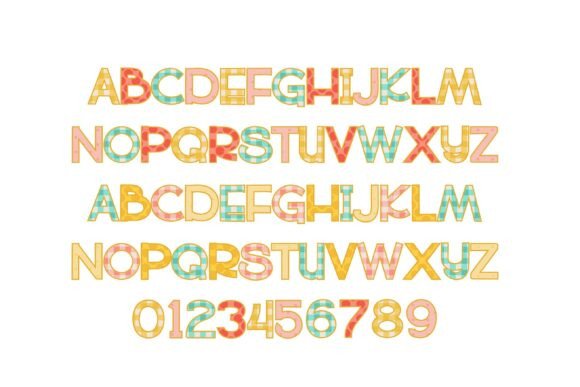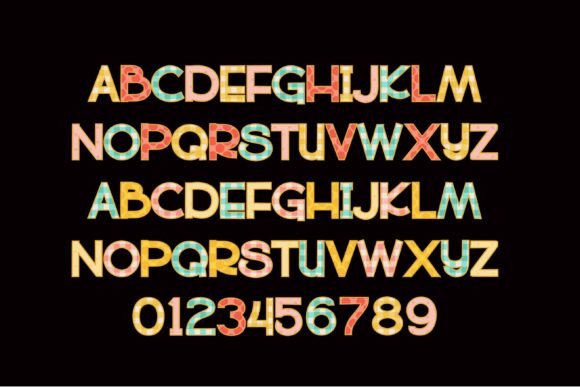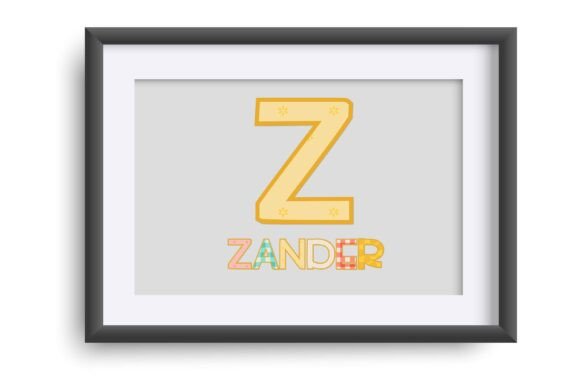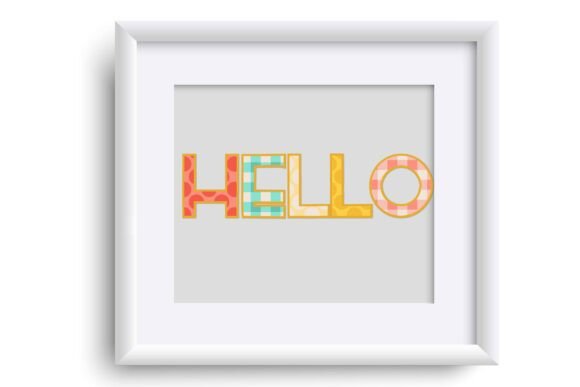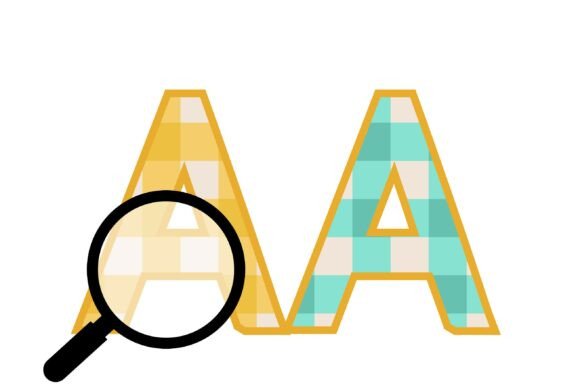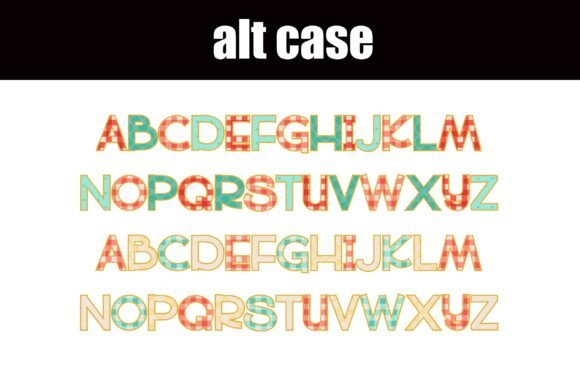
Introducing Good Morning Font: A Whimsical and Colorful Addition to Your Design Arsenal
Are you tired of using the same old fonts in your designs? Look no further! Good Morning Font is a full-color font that features a whimsical, crafty style in a pastel color palette with gingham patterns. This beautiful font is perfect for designers and crafters who want to add a touch of personality to their work.
What Makes Good Morning Font So Special?
Good Morning Font is an OpenType full-color (SVG) font that offers a range of features that set it apart from traditional fonts. For starters, it comes with an alt case of additional colors for each letter, which can be accessed through your system or Silhouette’s glyph map. This means you have even more options for customizing your designs.
But what really makes Good Morning Font shine is its use of color. The font features a pastel color palette with gingham patterns, giving it a playful and whimsical feel. Whether you’re designing a greeting card, a craft project, or a digital graphic, Good Morning Font is sure to add a pop of color and personality to your work.
The Benefits of Using Full-Color SVG Fonts
Full-color SVG fonts like Good Morning Font offer a range of benefits for designers and crafters. For one, they provide a level of customization and personality that’s hard to achieve with traditional fonts. With a full range of colors and styles to choose from, you can create anything from simple text-based designs to complex, multi-colored graphics.
Another benefit of full-color SVG fonts is their versatility. They can be used in a wide range of design projects, from digital graphics and social media posts to print materials like brochures and business cards.
Tips for Getting the Most Out of Good Morning Font
So, how can you get the most out of Good Morning Font? Here are a few tips:
- Experiment with different colors and styles to find the perfect look for your design.
- Use Good Morning Font to add a touch of personality to your designs, whether you’re creating a greeting card or a digital graphic.
- Don’t be afraid to get creative and try out new and unusual design ideas.
With Good Morning Font, the possibilities are endless. So why not give it a try and see what amazing designs you can create?
Good Morning Font is a beautiful and versatile full-color font that’s perfect for designers and crafters who want to add a touch of personality to their work. With its whimsical, crafty style and pastel color palette, this font is sure to become a favorite in your design arsenal. So why not give it a try today and see what amazing designs you can create?